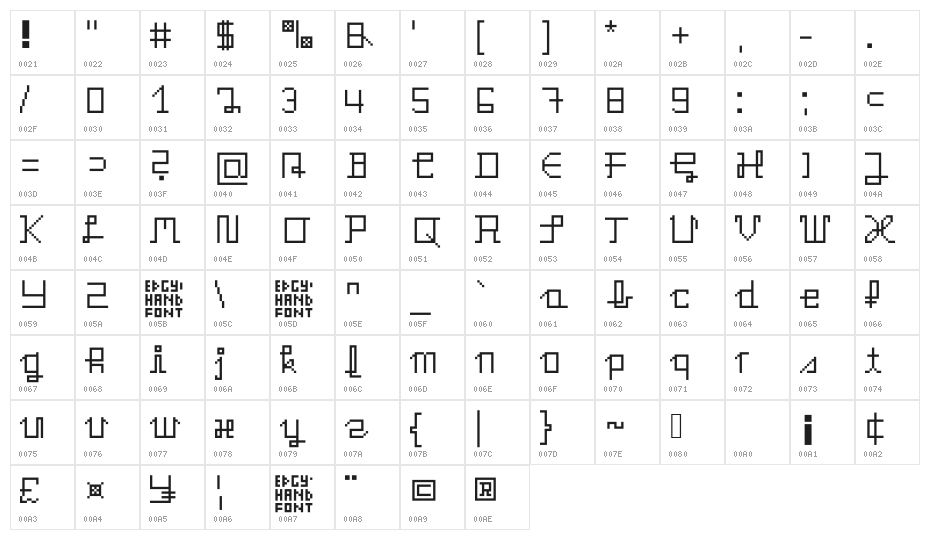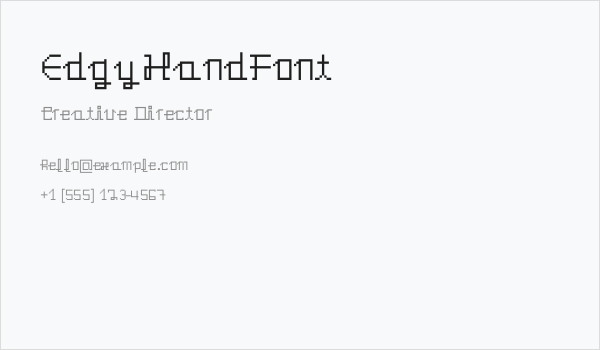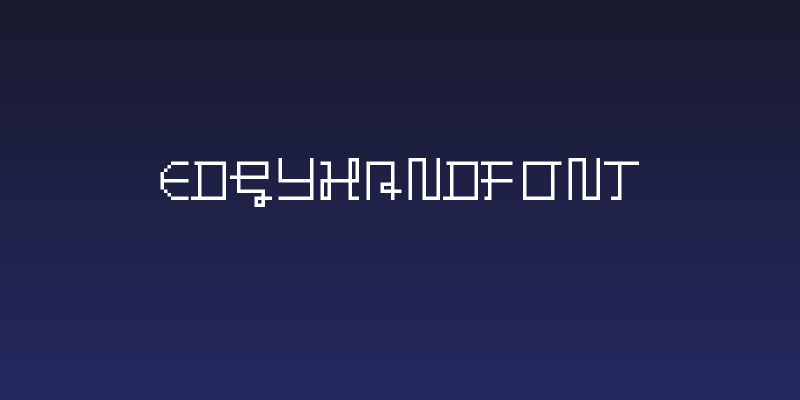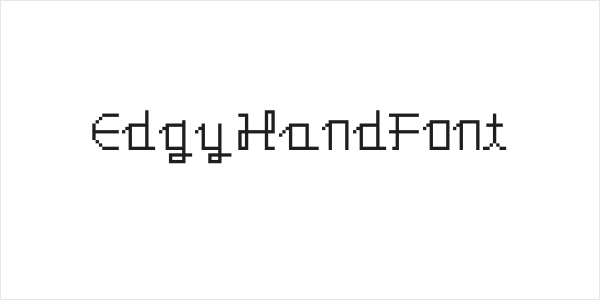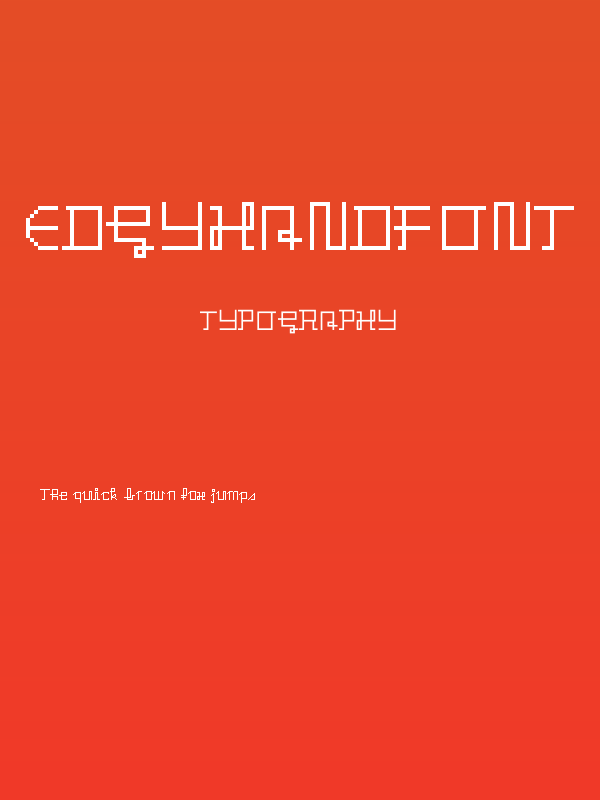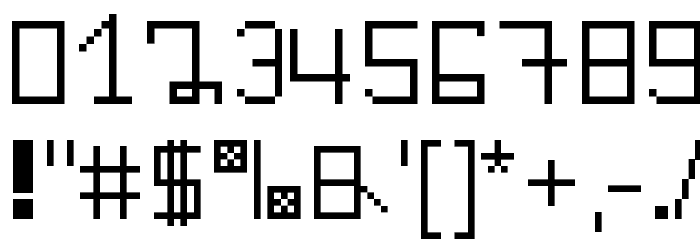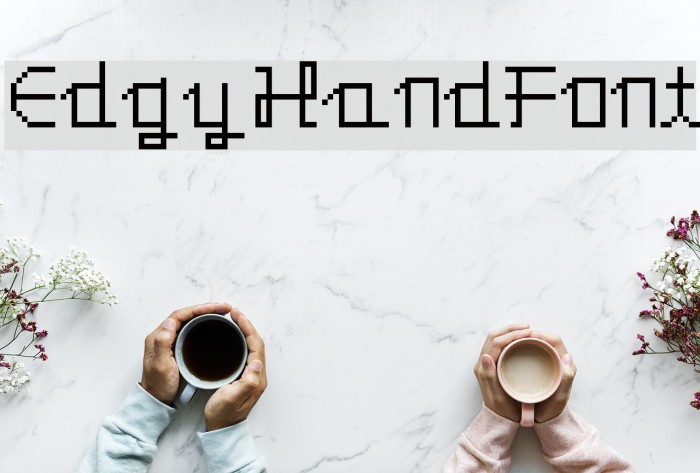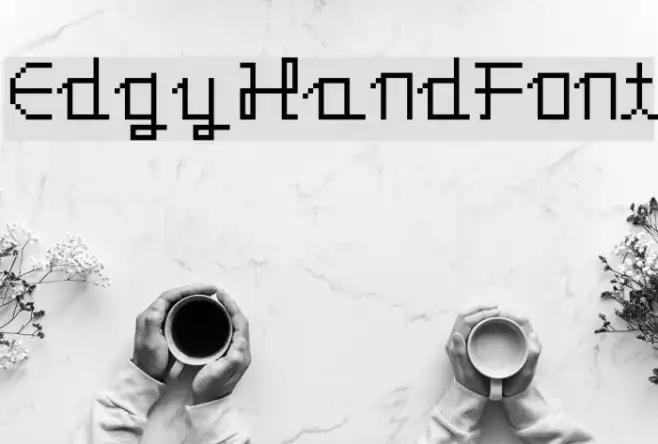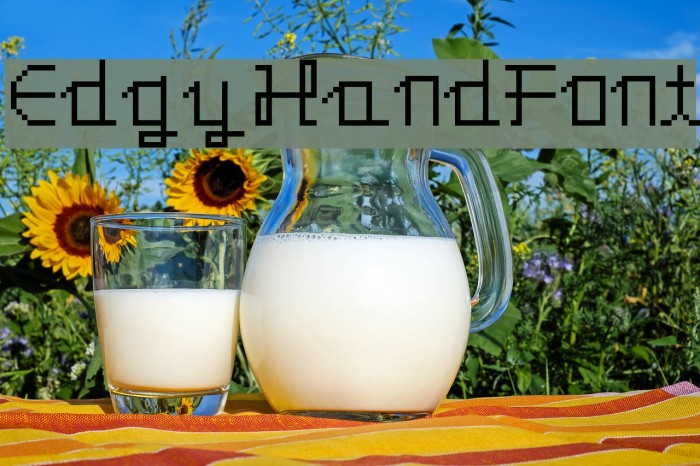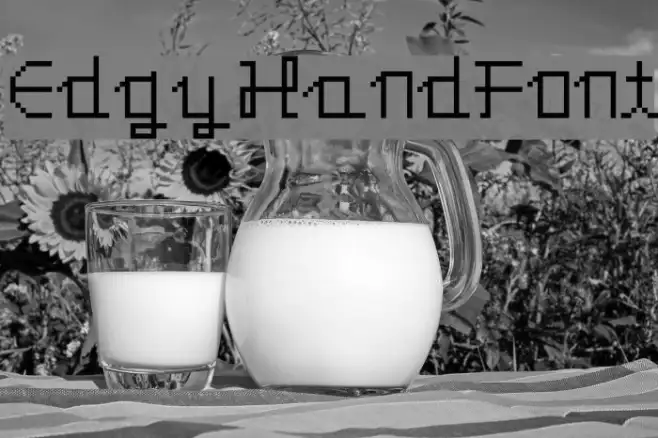
EdgyHandFont Font
EdgyHandFont Description
This font features a pixelated, edgy design that gives it a digital, retro aesthetic reminiscent of early computer graphics. The characters are constructed with a grid-like precision, creating a blocky and angular appearance. Each letter and number is distinct, with sharp corners and straight lines, contributing to a cohesive yet unique style. The special characters maintain this pixelated theme, ensuring consistency across the entire character set. This font's design is both nostalgic and modern, making it suitable for projects that aim to evoke a sense of digital nostalgia or futuristic themes.
| Proposed Projects | Ideal for video game design, digital art projects, retro-themed posters, and tech-related branding. |